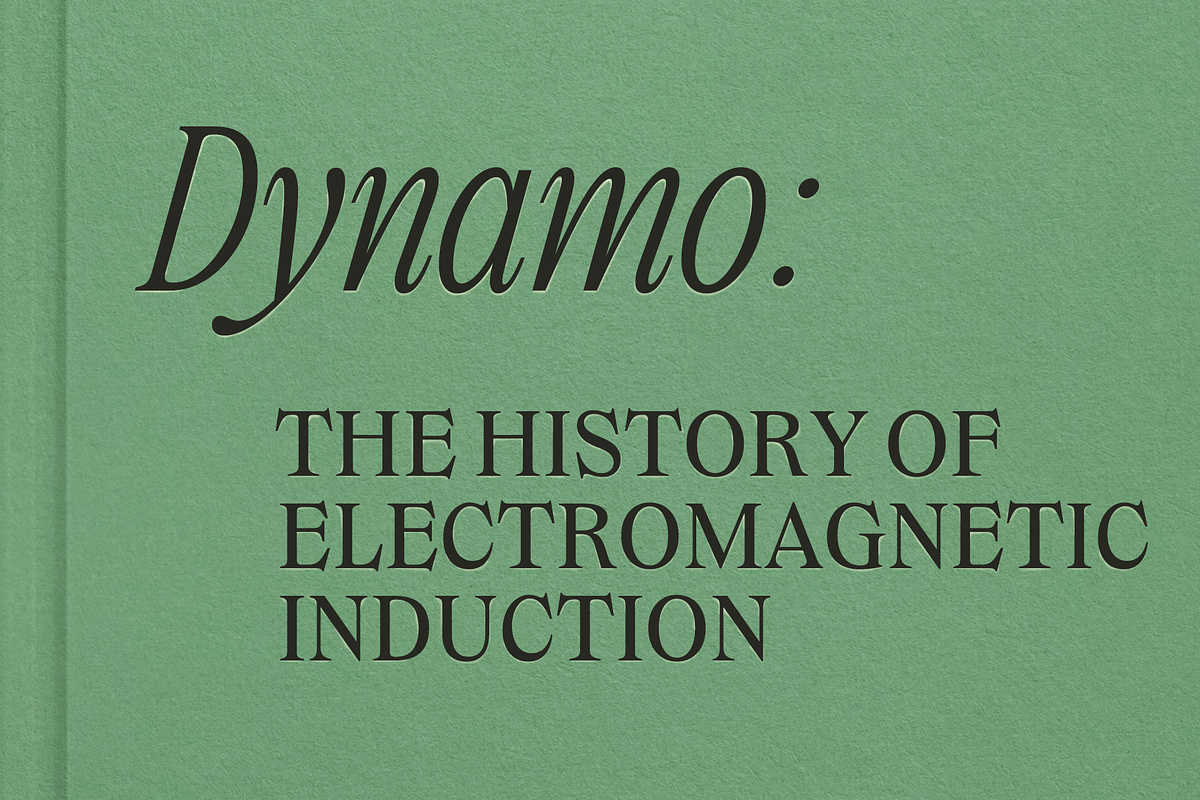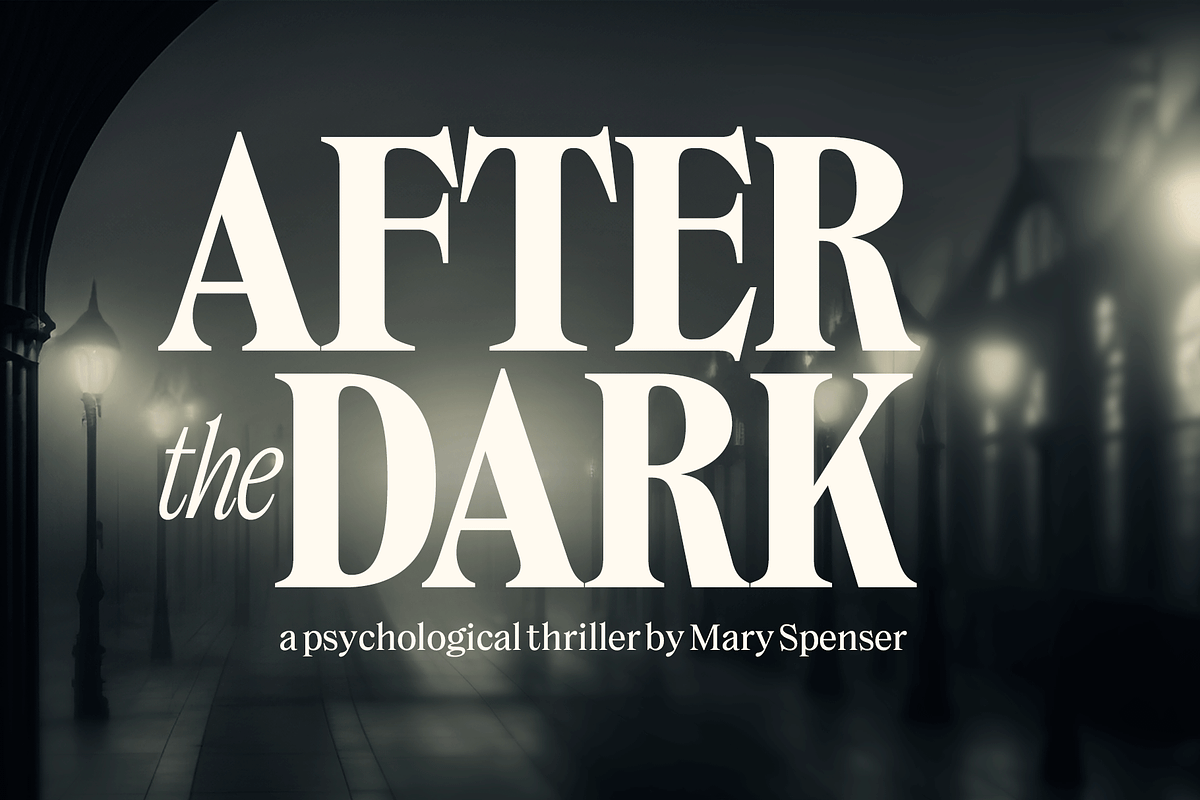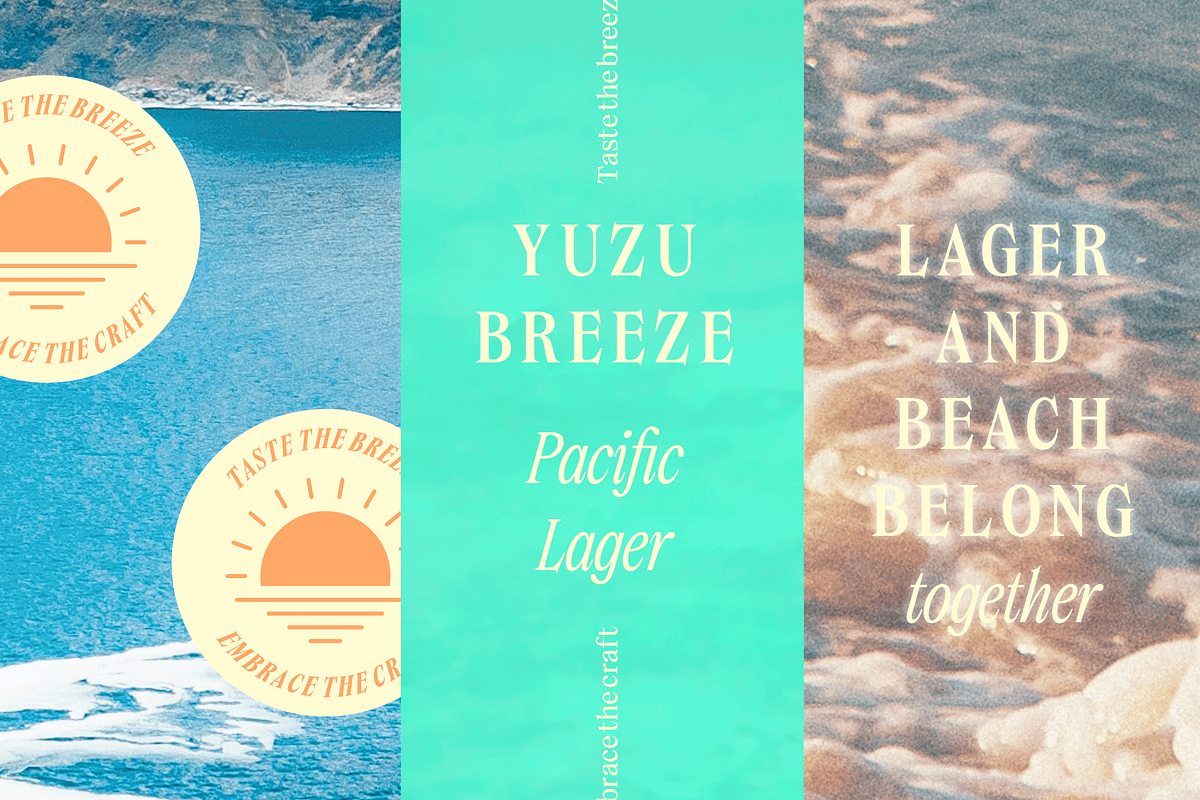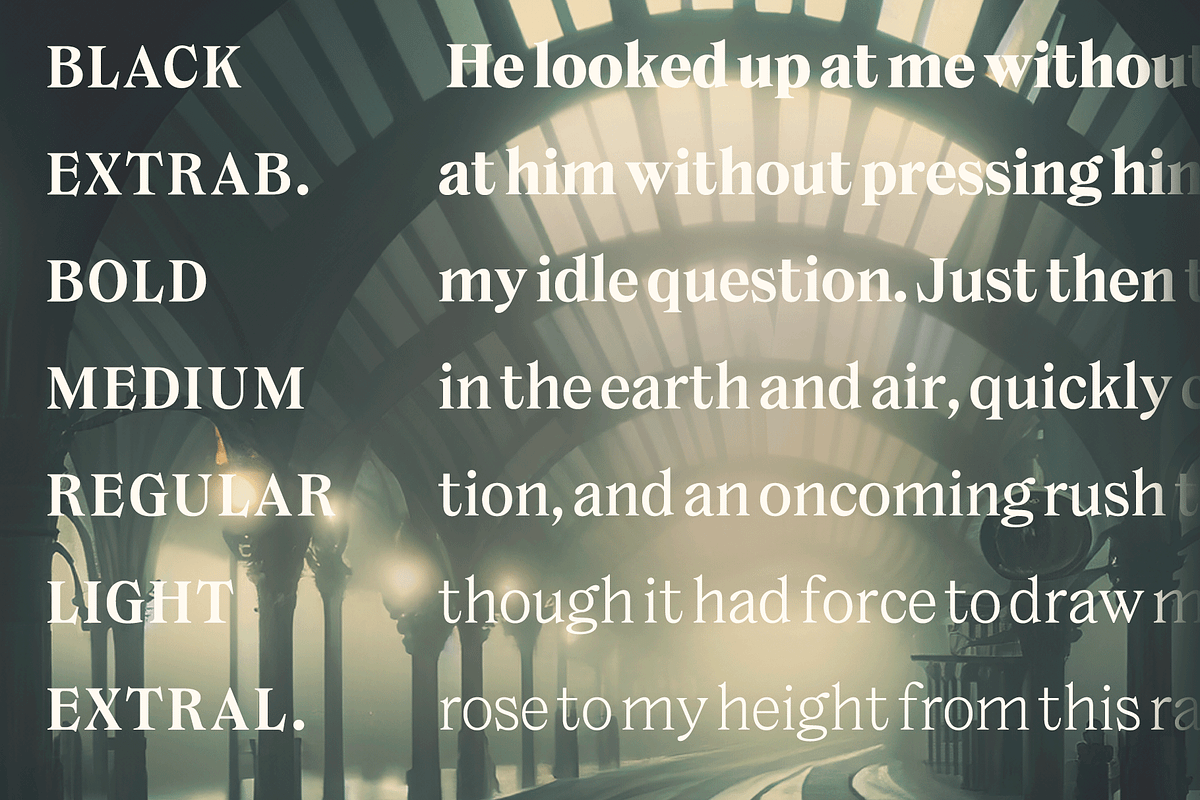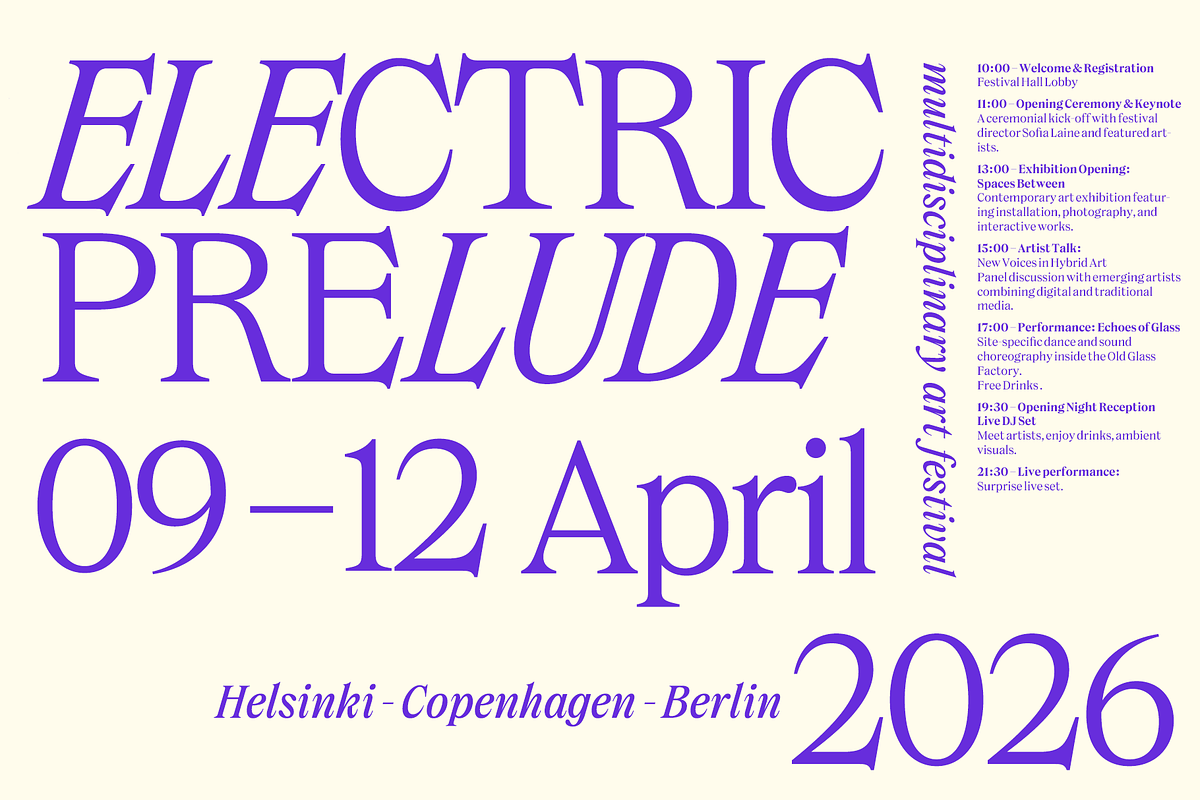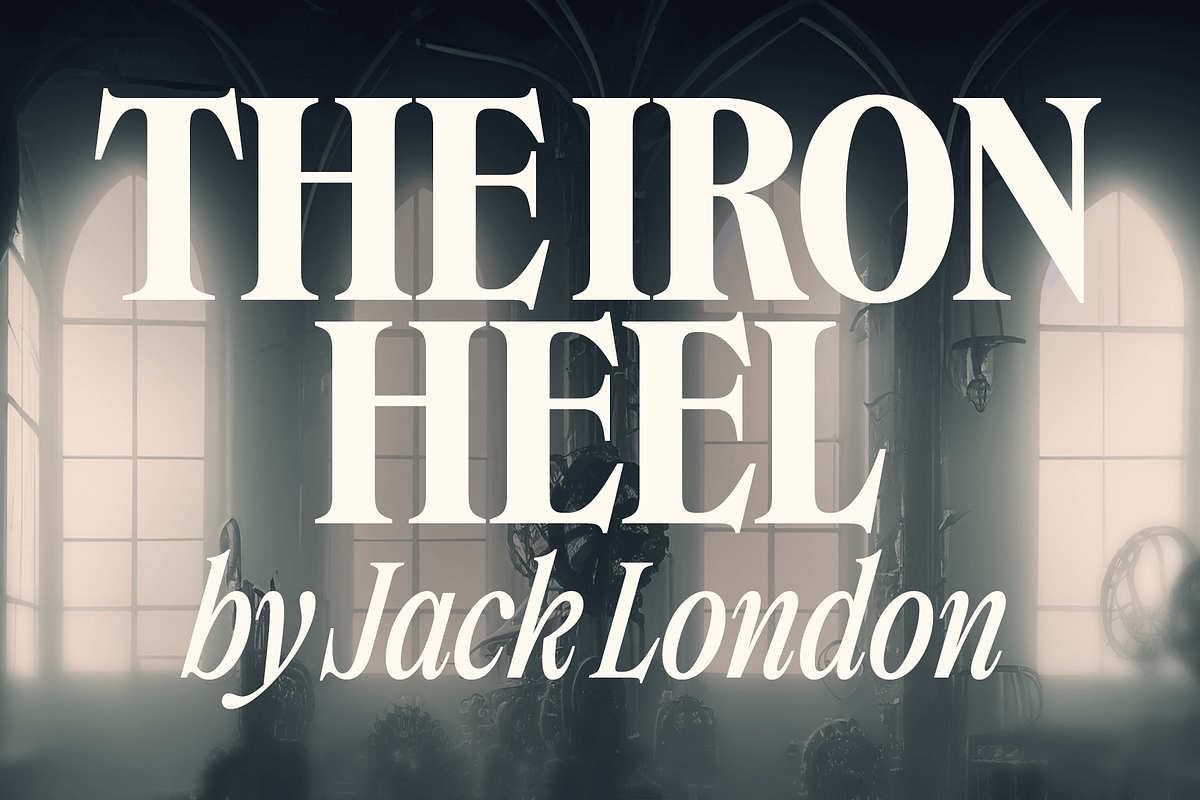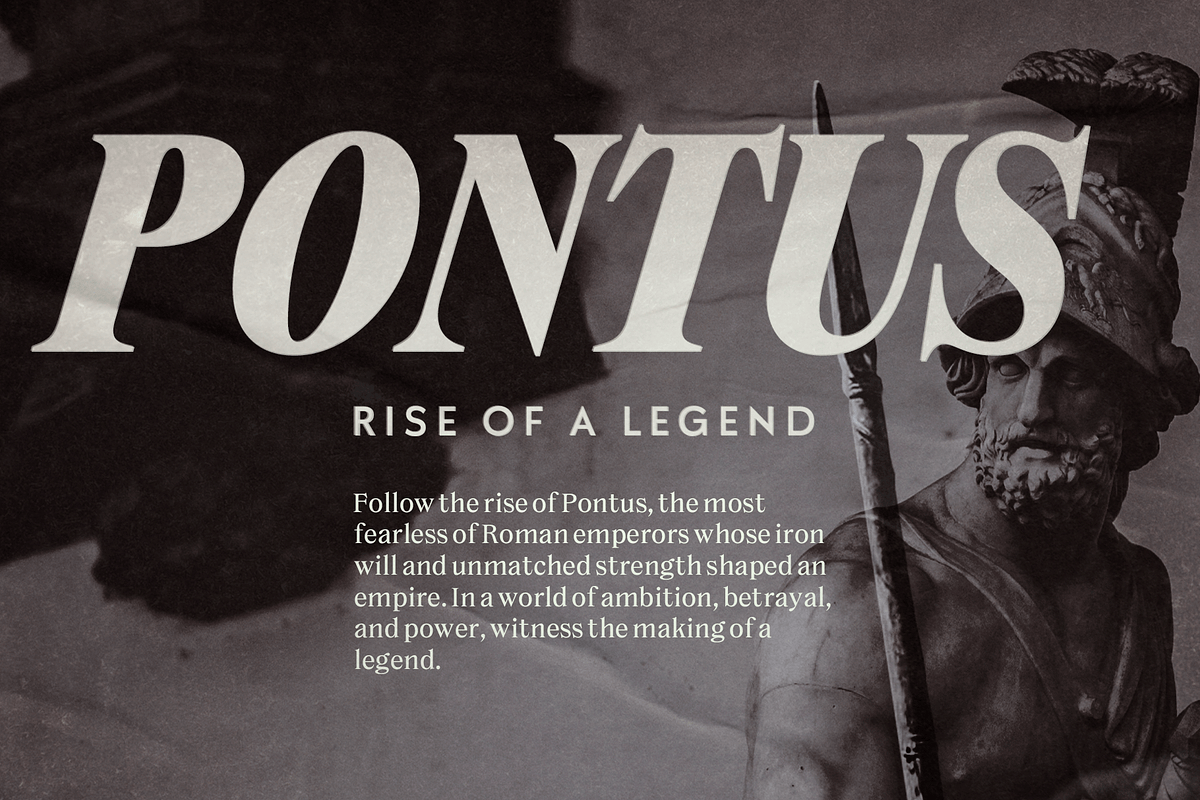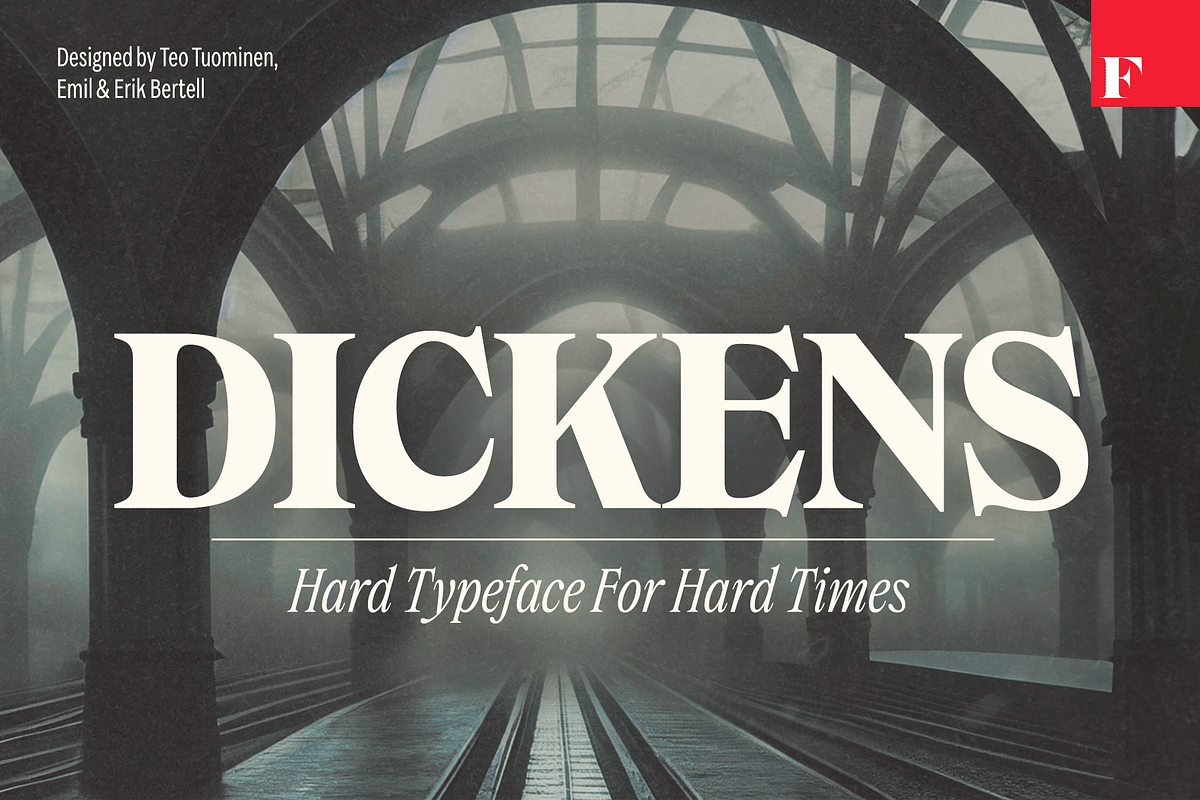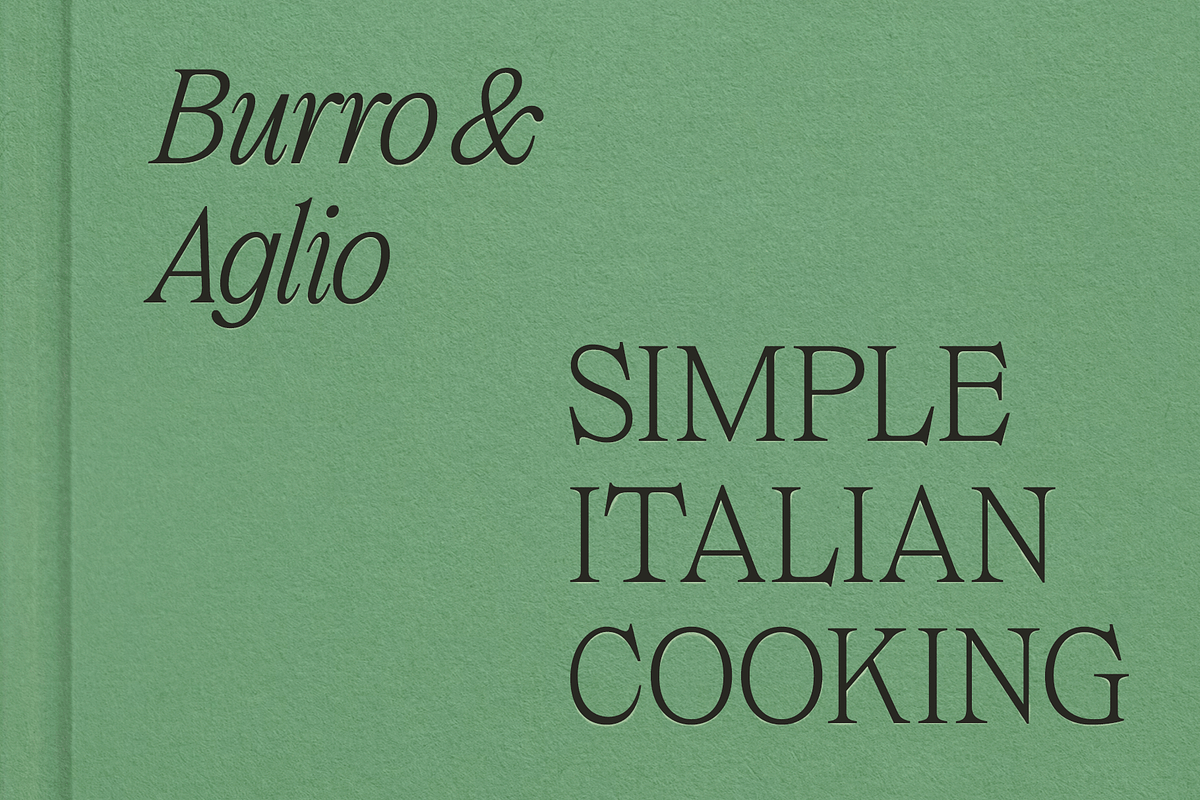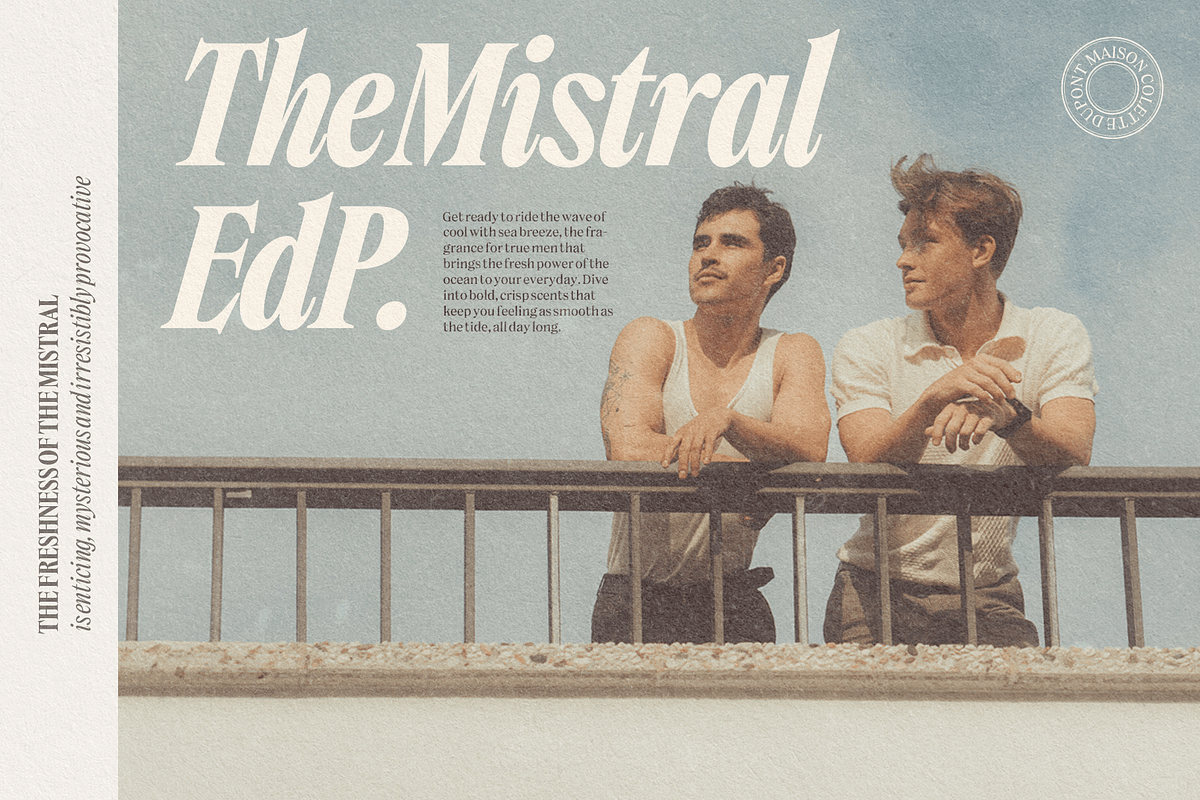
Dickens - Movie Title Serif
As the 21st century’s faith in the future is shattered, the zeitgeist is no longer captured by resorting to universal, neutral-looking, sans serif fonts – but rather by serifed ones that express tradition and severity, with quirks and personality. Dickens breathes a hard-working vitality. It may not be universal in appearance – but it is surprisingly local. The font family is equally suitable for use by a trendy natural cosmetics brand or as a brand font for a start-up that utilizes artificial intelligence, as it is for the visuals of a newly opened Bushwick micro brewery – bringing a lot of personality and a recognizable, distinct voice. Dickens is equipped with two different widths: the narrower one can survive even in tight times when public funding is being cut. The weights of the fonts range from thin to very thick, so you are sure to find the right tone. All fonts also have italic versions. On the other hand, there are no unnecessary features – this is a hard font for hard times, after all.